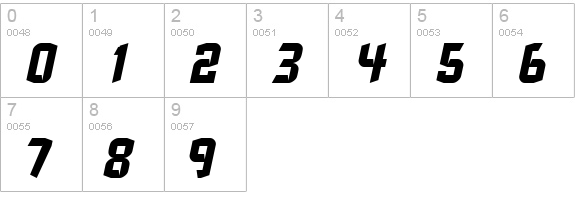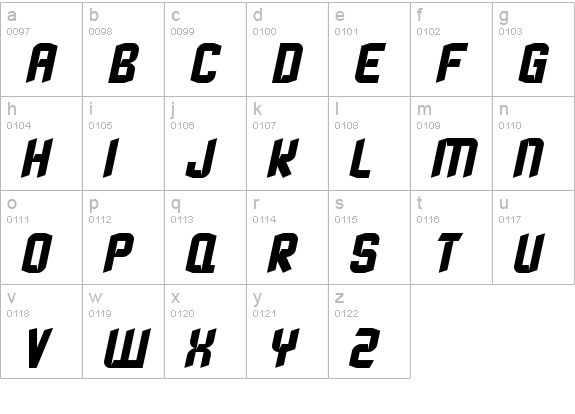
StrangePhenomena normal Font Details
StrangePhenomena normal is the standard, neutral variant in the StrangePhenomena typeface family \xE2\x80\x94 well suited to general body text, paragraphs, and standard typographic work.
StrangePhenomena is a captivating and enigmatic font that is sure to intrigue and captivate audiences. With its unique and mysterious aesthetic, this font is perfect for adding a touch of intrigue to any creative project. Whether used for branding, editorial design, or social media graphics, StrangePhenomena is sure to make a lasting impression. What sets StrangePhenomena apart is its ability to evoke a sense of mystery and curiosity, making it ideal for projects that require a touch of the unknown. The intricate details and unusual shapes of this font will leave viewers mesmerized and wanting more. But the best part? StrangePhenomena is freely available to download at FontsMarket.com, making it accessible to anyone looking to add a touch of the strange and unusual to their designs. Don't miss out on this opportunity to add a unique and captivating font to your collection. Download StrangePhenomena today and let your creativity run wild.